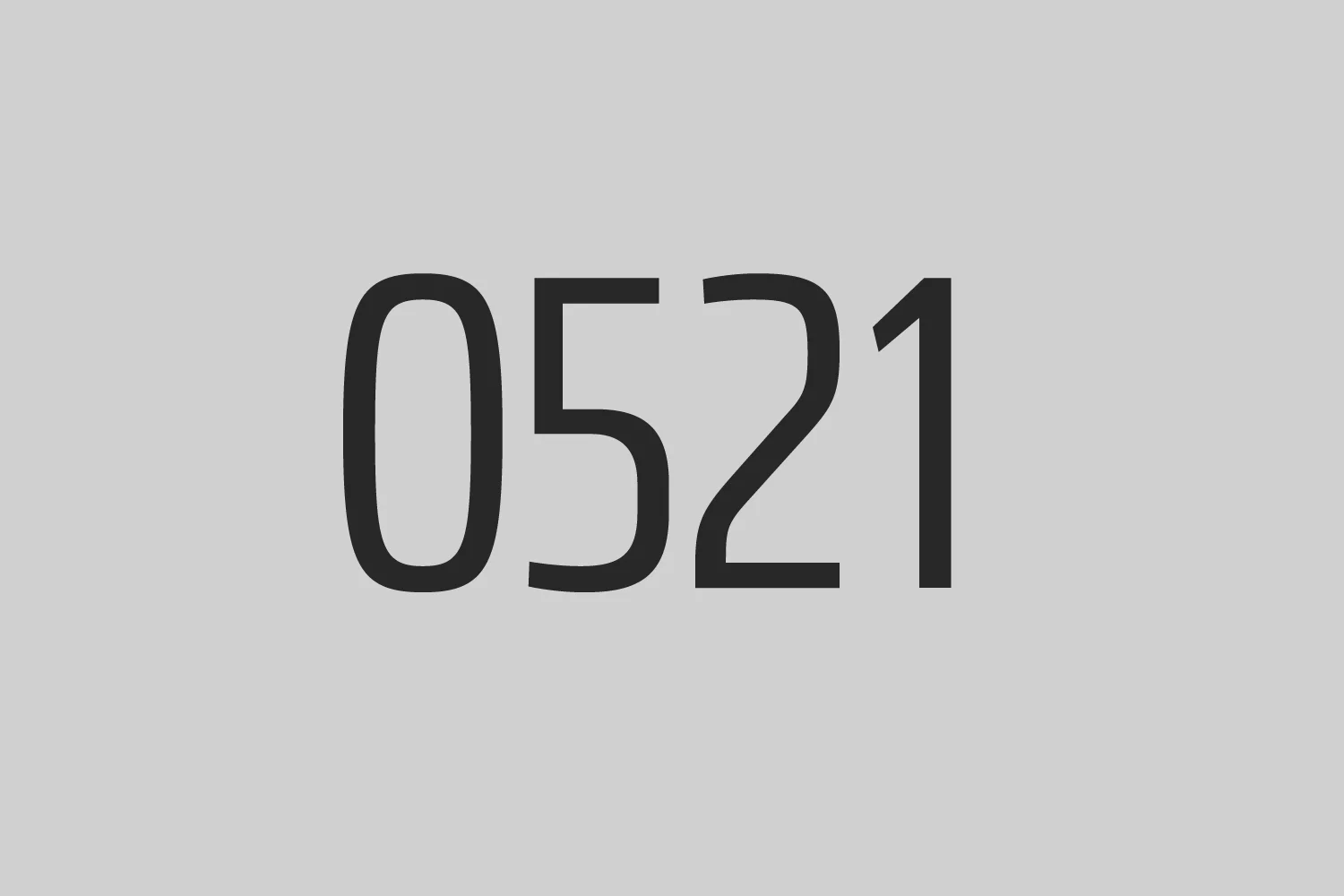
Klint Condensed
A condensed grotesque sans from HvD Fonts, built for tight settings and space-constrained typographic work.
Klint Condensed is a narrow-width sans from the German foundry HvD Fonts. Condensed grotesques of this kind suit display and editorial contexts where column widths are narrow or headline density is high. Full details on weights and language support were unavailable at time of cataloguing.
The name and condensed designation suggest a grotesque or geometric sans in a narrow width variant, consistent with HvD Fonts' broader type catalogue style.